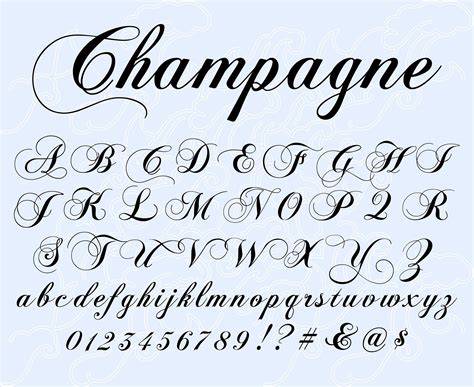
Curly Fonts: A Guide For Typography In 2023
What are Curly Fonts?
Curly fonts are a type of font that feature letters with curly lines and swirls. They are often used to create a decorative or fanciful look. Many different typefaces have been designed specifically to feature these distinctive shapes, including Script, Handwriting, and Cursive fonts. In recent years, there has been an increasing demand for curly fonts in various fields, such as advertising, branding, and even fashion. This has resulted in a rise in the number of typefaces available, with new and exciting designs being released every day.
How to Choose the Right Curly Font
Choosing the right curly font can be a tricky process. There are a few key things to consider when selecting a font. Firstly, it’s important to think about the purpose of the font. Are you using it for a logo, a headline, or a body of text? Different typefaces are better suited to different purposes, so it’s worth taking the time to do some research. Secondly, consider the overall style of the font. Are you looking for something classic, elegant, or whimsical? Finally, consider the legibility of the font. Is it easy to read, or is it too ornate? A font that is too intricate can be difficult to read, so it’s important to choose carefully.
Examples of Popular Curly Fonts
There are many popular curly fonts available today, with designers creating new and exciting designs on a regular basis. Examples of classic typefaces include Script, Handwriting, and Cursive fonts. Some of the most popular typefaces include Brush Script, Lobster, and Pacifico. These fonts are perfect for creating a whimsical and playful feel, and they are often used in logos, headlines, and advertising. For a more formal look, consider fonts like Baskerville, Bodoni, and Didot. These fonts are often used in professional settings and are perfect for creating a sleek and sophisticated look.
Curly fonts are an excellent choice for creating a unique and eye-catching look. Whether you’re looking for something sophisticated or playful, there are many typefaces available to suit your needs. It’s important to consider the purpose of the font and the legibility of the design when selecting a typeface. With so many fonts available, you’re sure to find the right one for your project. So go ahead, explore the world of curly fonts and create something beautiful!